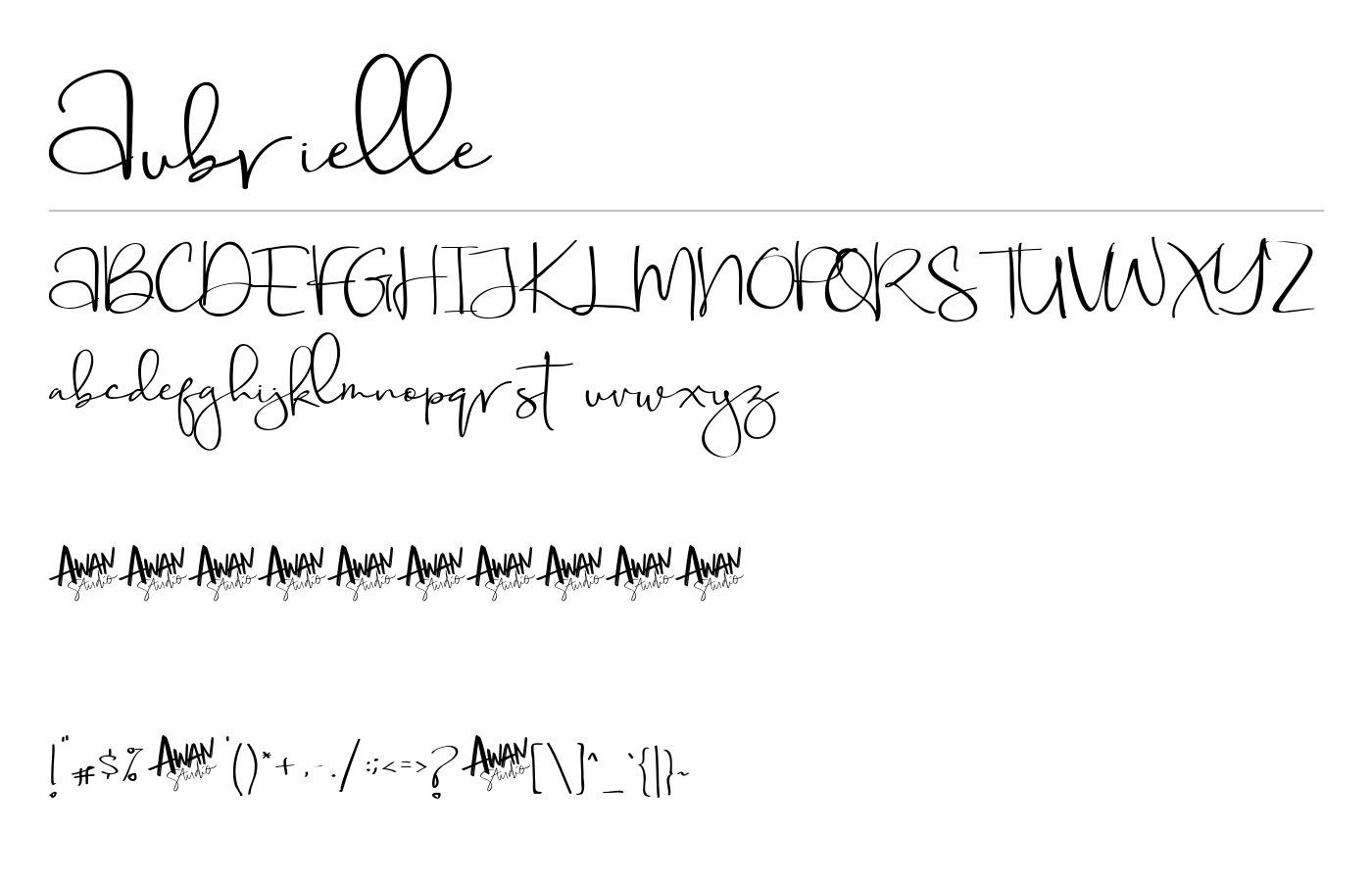
Aubrielle is a delicate, handwritten script font with a whimsical and airy feel, characterized by its thin, flowing strokes and elegant loops. Its light weight and playful letterforms make it perfect for creative projects that seek a personal, artistic touch, such as invitations, branding for fashion or beauty, and stylish headlines. This font conveys a charming, feminine vibe suited for modern, expressive designs.
Aubrielle Font
About Aubrielle Font